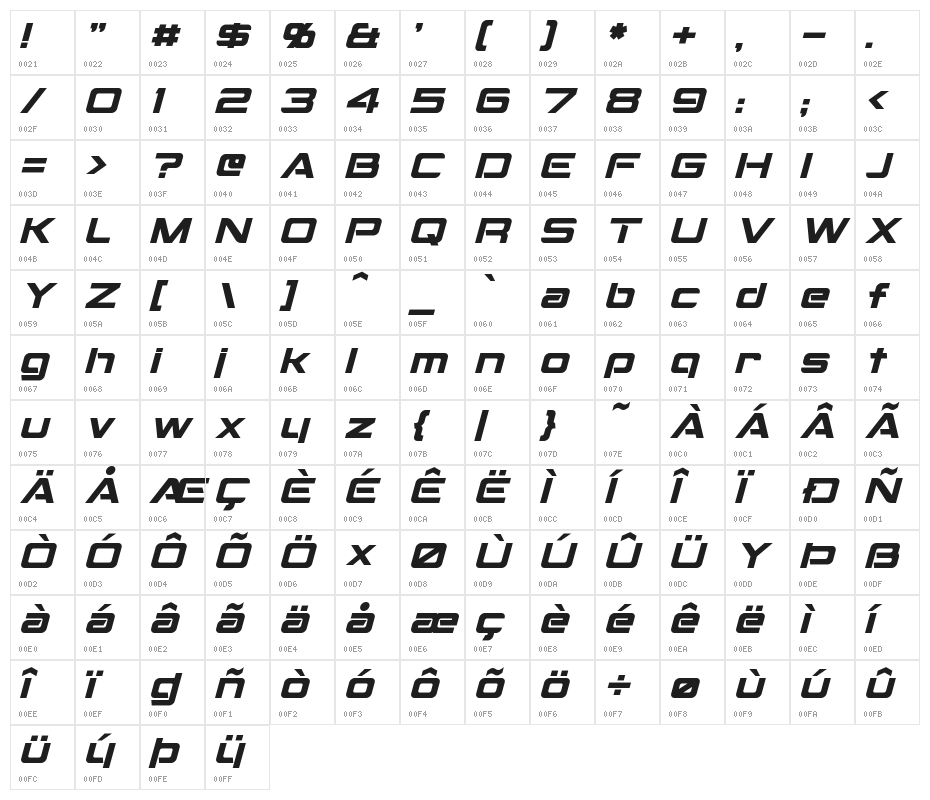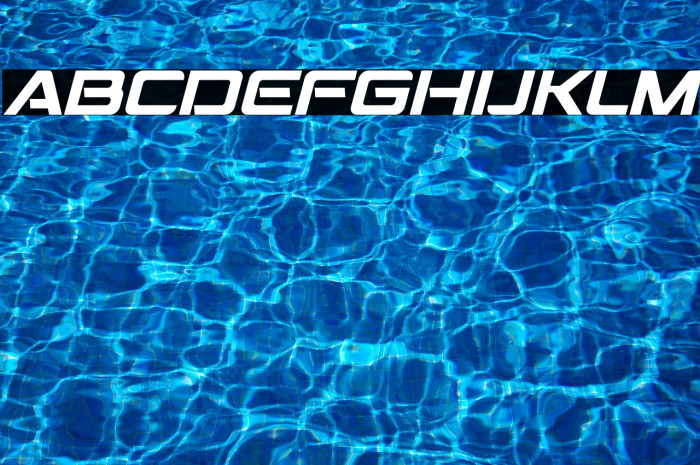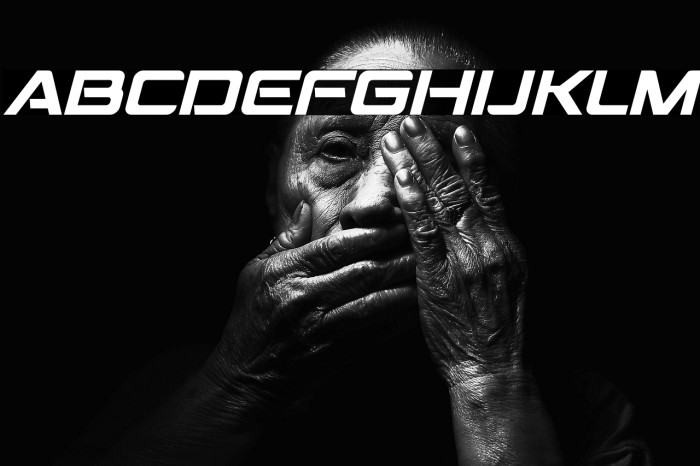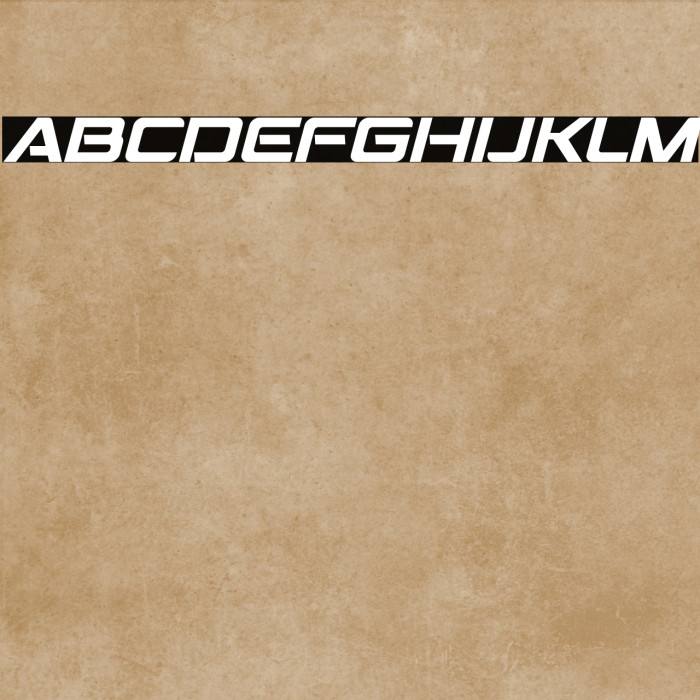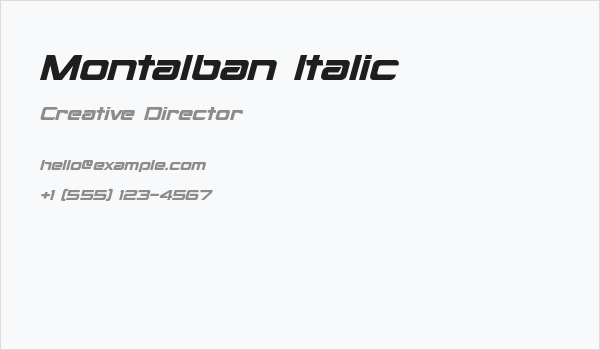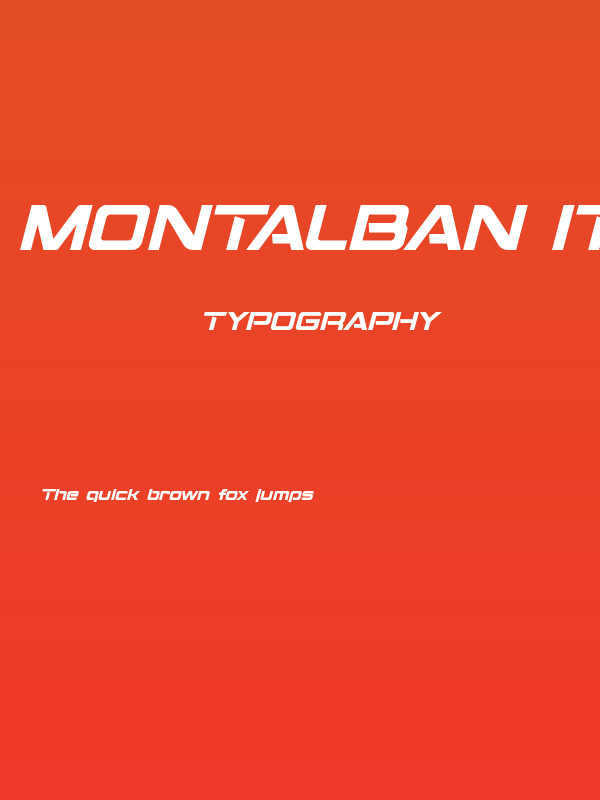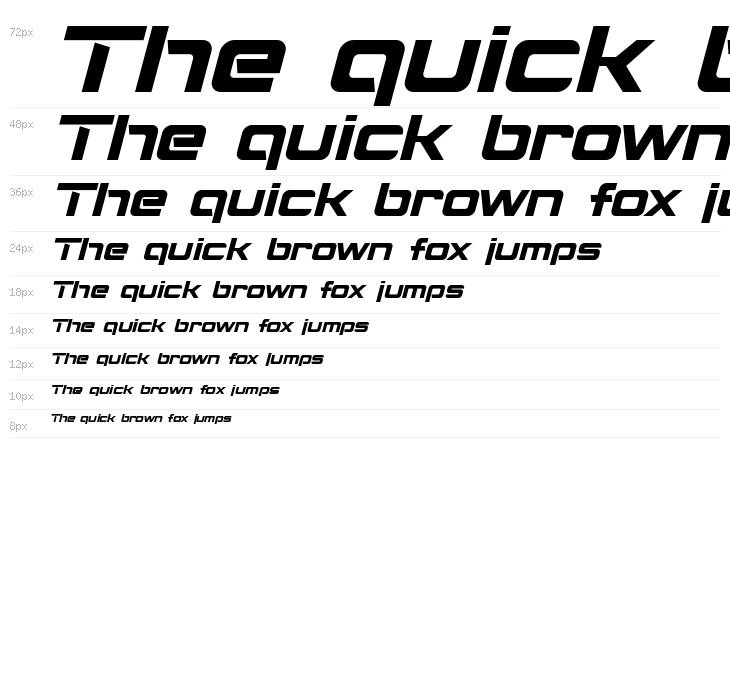
Montalban Italic Font
Montalban Italic Description
This font exhibits a sleek, modern design with a distinct italic slant, giving it a dynamic and forward-moving appearance. The characters are bold and slightly condensed, which enhances their readability while maintaining a stylish look. The angular cuts and sharp edges contribute to its contemporary feel, making it suitable for projects that require a touch of modernity and sophistication. The uniform stroke width across characters ensures consistency, while the moderate spacing between letters provides clarity and balance. This font is versatile, capable of being used in various design contexts where a modern and energetic aesthetic is desired.